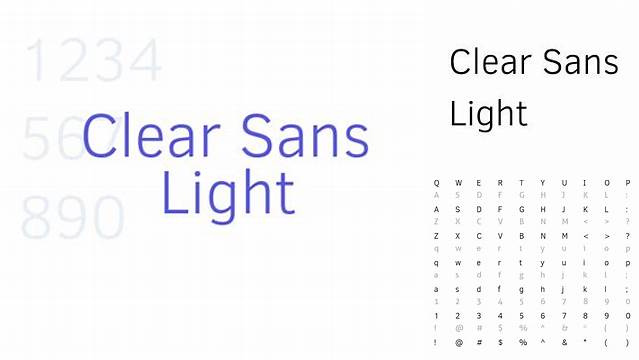
In the realm of typography, the Clear Sans Light font stands out as a beacon of clarity and elegance. For designers, developers, and anyone who appreciates the art of legible and visually appealing text, finding the right font is paramount. Guys, if you're on the hunt for a typeface that combines modern aesthetics with unparalleled readability, Clear Sans Light might just be your holy grail. This article dives deep into the world of Clear Sans Light, exploring its origins, design principles, use cases, and, most importantly, how you can download it for free. So, buckle up and let's embark on this typographic journey together!
What is Clear Sans Light?
Clear Sans Light is more than just a font; it's a meticulously crafted typeface designed to enhance readability across various platforms and screen resolutions. Developed by Intel, this font family is part of the larger Clear Sans typeface, which includes a range of weights and styles. The Light variant, in particular, exudes a sense of subtlety and sophistication, making it an excellent choice for both body text and headings. Its clean lines and generous spacing contribute to a comfortable reading experience, reducing eye strain and improving comprehension. The font's design philosophy revolves around creating a neutral and unobtrusive typeface that allows the content to shine. This makes it incredibly versatile, suitable for everything from corporate documents and websites to mobile applications and user interfaces. Clear Sans Light is engineered to perform exceptionally well in digital environments, ensuring that text remains crisp and legible even at smaller sizes. Its open and airy letterforms, combined with a consistent stroke width, create a harmonious visual rhythm that draws the reader in. The font's neutrality also means it pairs well with a wide variety of other typefaces, giving designers the flexibility to create unique and compelling visual hierarchies. Whether you're designing a sleek and modern website or crafting a professional presentation, Clear Sans Light offers a timeless elegance that elevates any project. So, if you're looking for a font that prioritizes readability without sacrificing style, Clear Sans Light is definitely worth considering.
The History and Development of Clear Sans
The story of Clear Sans Light begins with the need for a typeface that could meet the demands of modern digital displays. Intel, a company synonymous with technological innovation, recognized the importance of clear and legible text in user interfaces and documentation. This realization led to the development of the Clear Sans font family, with the Light variant being a crucial component. The project was initiated to create a typeface that would not only be visually appealing but also highly functional across a wide range of devices and screen resolutions. The design team embarked on a meticulous process, studying the nuances of typography and the specific challenges posed by digital environments. They understood that a successful typeface for the digital age needed to be optimized for on-screen reading, ensuring that text remained crisp and clear even at small sizes. The development of Clear Sans Light involved extensive testing and refinement, with each letterform carefully crafted to achieve optimal readability. The designers paid close attention to details such as stroke weight, letter spacing, and overall balance, striving to create a typeface that would be both elegant and practical. One of the key goals was to create a font that would reduce eye strain and improve comprehension, making it easier for users to engage with content. The Clear Sans Light typeface was not created overnight, but it was meticulously created step by step, because the creators knew its great usefulness.
The result was a typeface that embodies clarity and simplicity, reflecting Intel's commitment to innovation and user-centric design. Clear Sans Light quickly gained popularity among designers and developers, who appreciated its versatility and its ability to enhance the readability of their projects. Today, Clear Sans Light is used in a wide range of applications, from corporate websites and mobile apps to technical documentation and user manuals. Its enduring appeal is a testament to the thoughtful design and the dedication of the team that brought it to life. The history and development of Clear Sans Light underscore the importance of typography in the digital age and the impact that a well-designed font can have on the user experience.
Key Features and Design Principles
The design of Clear Sans Light is underpinned by several key features and principles that contribute to its exceptional readability and aesthetic appeal. Firstly, the font's clean and minimalist letterforms are characterized by their simplicity and clarity. Each character is carefully crafted to ensure that it is easily distinguishable, even at small sizes. This is achieved through a combination of open counters, consistent stroke weights, and generous letter spacing. The Light weight of the font adds a touch of elegance and sophistication, making it suitable for a wide range of applications. One of the primary design principles behind Clear Sans Light is legibility. The font is optimized for on-screen reading, with each letterform designed to minimize eye strain and maximize comprehension. This is particularly important in digital environments, where users often spend long hours reading text on screens. The designers paid close attention to the nuances of typography, ensuring that the font performs well across various screen resolutions and devices. Another key feature of Clear Sans Light is its neutrality. The font is designed to be unobtrusive, allowing the content to take center stage. This makes it a versatile choice for a variety of projects, from corporate communications to user interfaces. The font's neutrality also means that it pairs well with other typefaces, giving designers the flexibility to create unique and compelling visual hierarchies. The consistency of Clear Sans Light is another important aspect of its design. The font maintains a uniform appearance across all weights and styles, ensuring a cohesive visual experience. This consistency extends to the spacing and kerning, which are carefully adjusted to create a harmonious rhythm. Overall, the key features and design principles of Clear Sans Light reflect a commitment to clarity, legibility, and versatility. The font is a testament to the power of thoughtful design in enhancing the user experience.
Use Cases for Clear Sans Light
Clear Sans Light shines in a variety of use cases, making it a versatile choice for designers and developers across different fields. Its clean and legible design makes it particularly well-suited for user interfaces (UIs), where clarity is paramount. Whether it's a website, a mobile app, or a desktop application, Clear Sans Light ensures that text is easily readable, enhancing the user experience. The font's minimalist aesthetic also complements modern UI designs, adding a touch of elegance and sophistication. In the realm of corporate communications, Clear Sans Light is an excellent choice for reports, presentations, and other documents. Its professional and understated appearance conveys a sense of credibility and trustworthiness. The font's legibility ensures that information is easily digestible, making it ideal for conveying complex ideas and data. Websites and blogs also benefit greatly from the use of Clear Sans Light. Its clean lines and generous spacing contribute to a comfortable reading experience, encouraging visitors to stay longer and engage with the content. The font's versatility allows it to be used for both body text and headings, creating a cohesive and visually appealing design. For technical documentation, Clear Sans Light is a standout option. Its clarity and legibility are essential for conveying technical information accurately and efficiently. The font's neutral design ensures that the focus remains on the content, rather than the typeface itself. Mobile applications are another area where Clear Sans Light excels. Its optimized design ensures that text remains crisp and clear even on small screens. This is crucial for creating a positive user experience on mobile devices. Clear Sans Light's adaptability extends to print materials as well. While primarily designed for digital use, the font performs admirably in printed documents, brochures, and other marketing materials. Its clean lines and professional appearance make it a solid choice for any project that requires a touch of sophistication. So, whether you're designing a website, creating a presentation, or developing a mobile app, Clear Sans Light is a reliable and versatile typeface that will elevate your work.
Alternatives to Clear Sans Light
While Clear Sans Light is an excellent choice for many projects, it's always a good idea to be aware of alternative typefaces that offer similar qualities. Guys, having a diverse typographic toolkit can help you find the perfect font for every situation. One popular alternative to Clear Sans Light is Roboto, a sans-serif typeface developed by Google. Roboto is known for its clean and modern design, making it a versatile choice for a wide range of applications. Like Clear Sans Light, Roboto is highly legible and performs well on screens, making it suitable for websites, mobile apps, and user interfaces. Another noteworthy alternative is Open Sans, another sans-serif typeface designed with readability in mind. Open Sans features open letterforms and a neutral appearance, making it a great option for body text. It's also available in a variety of weights and styles, giving you plenty of flexibility in your designs. Lato is another sans-serif typeface that shares many of the qualities of Clear Sans Light. Lato is known for its semi-rounded details, which give it a warm and friendly appearance. It's a versatile font that works well in both print and digital environments. If you're looking for a typeface with a slightly more geometric feel, consider Montserrat. This sans-serif font features clean lines and a modern aesthetic, making it a popular choice for logos, headings, and display text. Montserrat is also highly legible and performs well on screens. For a more classic and traditional sans-serif option, Helvetica is a timeless choice. Helvetica is known for its neutrality and versatility, making it a reliable option for a wide range of projects. While it's not as optimized for on-screen reading as Clear Sans Light, it remains a popular choice for print materials and corporate communications. Each of these alternative typefaces offers its own unique characteristics, so it's worth exploring them to see which one best fits your specific needs. Experimenting with different fonts can help you discover new favorites and expand your typographic horizons. So, while Clear Sans Light is a fantastic option, don't be afraid to explore the world of type and find the perfect font for your project.
In conclusion, Clear Sans Light is a remarkable typeface that combines clarity, legibility, and elegance. Its thoughtful design and open-source availability make it a valuable asset for designers, developers, and anyone who appreciates the art of typography. Guys, whether you're working on a website, a mobile app, a presentation, or any other project, Clear Sans Light is a font that you can rely on to deliver a professional and polished look. We've explored the history and development of Clear Sans Light, its key features and design principles, its various use cases, and how to download it for free. We've also provided a step-by-step installation guide and discussed alternative typefaces that offer similar qualities. By now, you should have a comprehensive understanding of Clear Sans Light and how it can enhance your projects. The font's clean and minimalist aesthetic makes it a versatile choice for a wide range of applications. Its optimized design ensures that text remains crisp and clear even on small screens, making it ideal for digital environments. And its open-source license means that you can use it in your personal and commercial projects without any licensing fees. So, what are you waiting for? Download Clear Sans Light today and experience the difference that a well-designed typeface can make. Elevate your designs, improve readability, and create a lasting impression with this exceptional font. Happy designing!